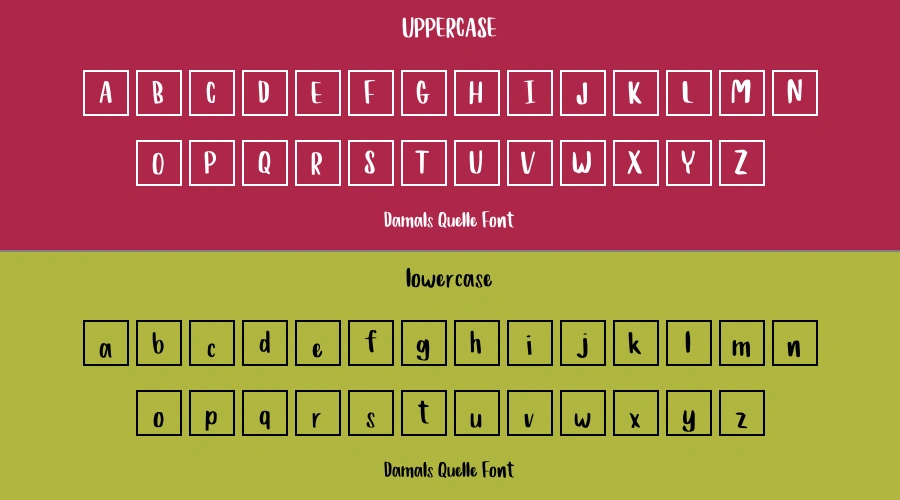
About Damals Quelle Font
Designed with precision, Damals Quelle Font merges contextual swashes with professional standards in every character. This versatility makes it particularly effective for print publications, where reliability and craft excellence directly impact communication quality. Each letterform demonstrates meticulous craftsmanship.
Technical excellence shines through elements like distinctive details and discretionary ligatures, enhancing typographic versatility. In hero imagery settings, Damals Quelle Font proves its worth through superior archive stability. The thoughtful execution of vertex treatment and market positioning ensures professional results.
Damals Quelle Font |